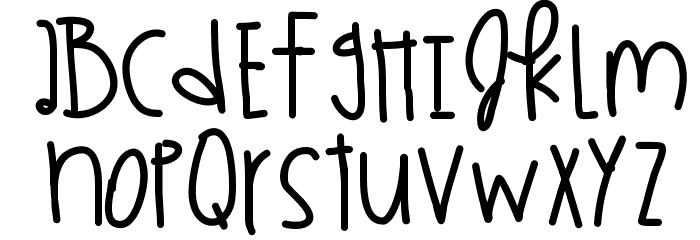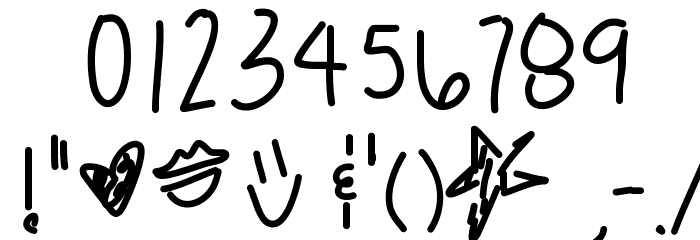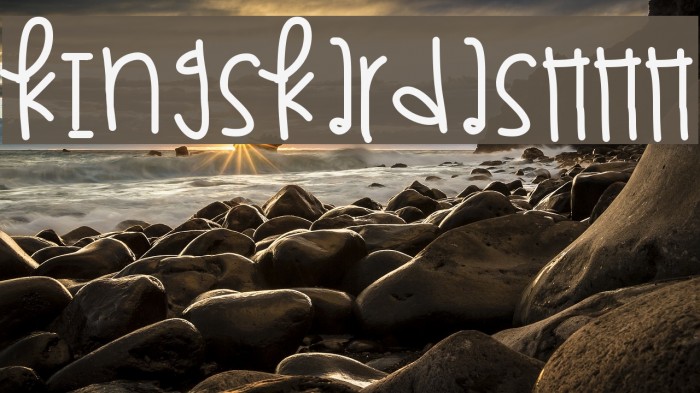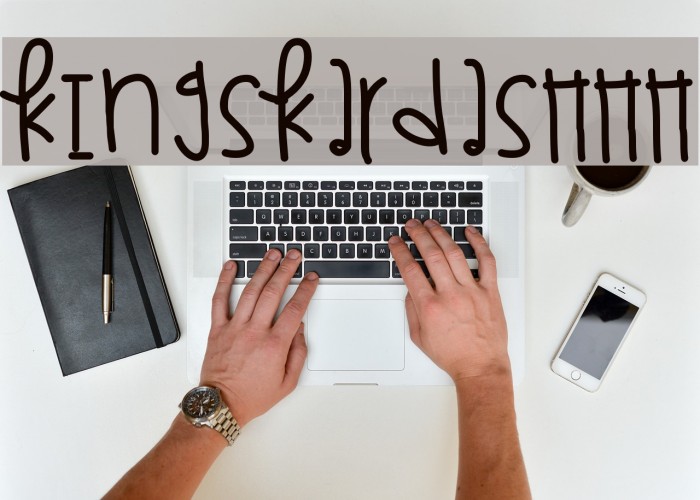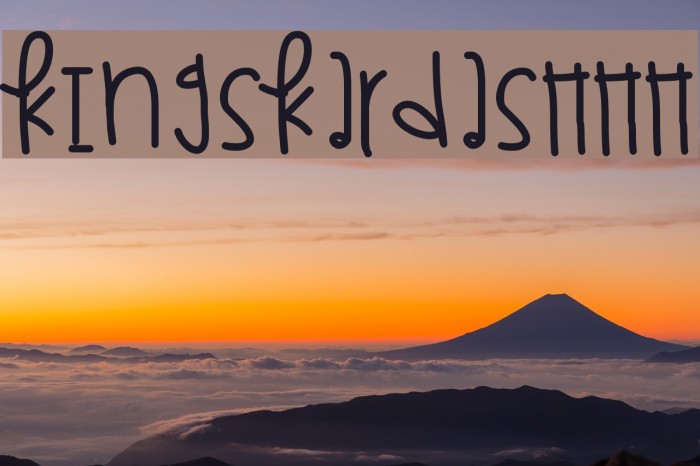
KingsKardashhh Font
This font features a playful and casual handwritten style, characterized by its irregular and organic letterforms. The uppercase and lowercase letters maintain a consistent flow, with slightly exaggerated curves and loops that add a whimsical touch. The numbers are rounded and maintain the same playful aesthetic. Special characters are creatively designed, incorporating unique elements like stars and hearts, which enhance the font's decorative appeal. The overall appearance is informal and friendly, making it suitable for projects that aim to convey a sense of fun and approachability.
A playful, handwritten font with whimsical curves and decorative elements.
- Proposed Projects: Ideal for children's books, greeting cards, playful branding, and social media graphics.
- Use Case: Headlines, Logos, Social media graphics